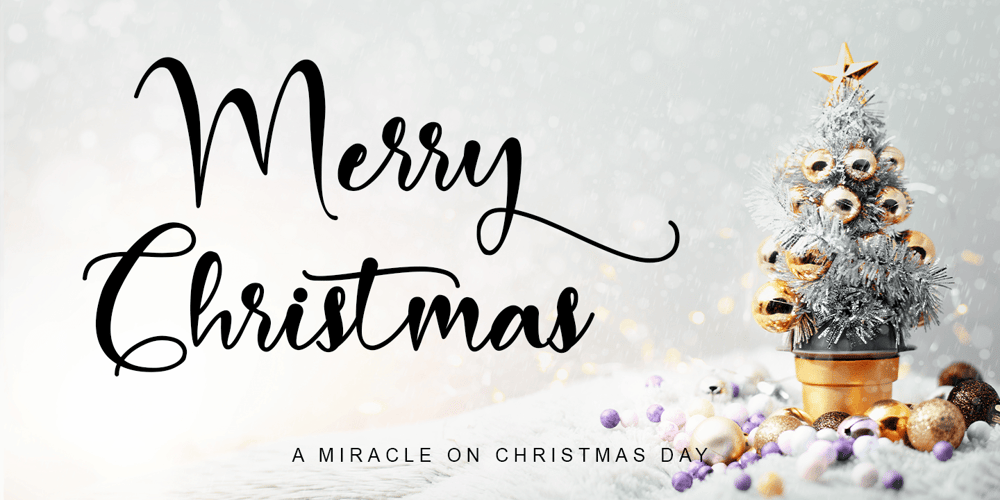
Merry Christmas Baby Font Family was designed by Stefani Tri Rosa Setiati Christiana and published by Stefani Letter. Merry Christmas Baby contains 2 styles and family package options. Merry Christmas Baby is a minimalist script font designed with an incredibly modern, beautiful feel, fresh, rich, and elegant. It’s great for Christmas-themed greeting cards, branding materials, business cards, quotes, posters, and more! Merry Christmas Baby will look outstanding in any context, whether it’s being used on busy backgrounds or as a standalone headline! This font is PUA encoded which means you can access all of the glyphs and swashes with ease! It features a varying baseline, smooth lines, gorgeous glyphs, and stunning alternates.